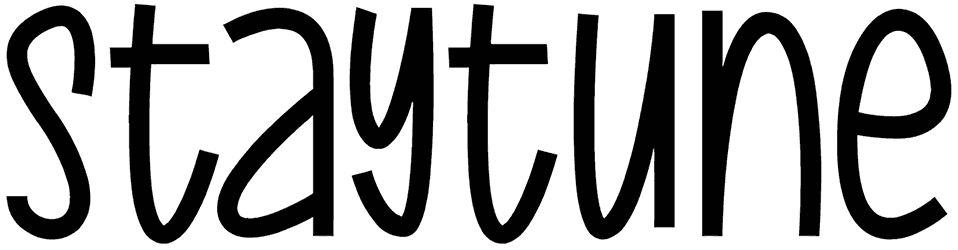
Staytune Font
Would you like to add a playful vibe to your happy-themed design? As a sticker font, Staytune can represent the right choice to cause this to happen. Even if the Staytune font doesn’t include some lowercase letters, it can adorn a lot of creative projects such as posters, comics, school designs, planners, and other kinds of stuff.